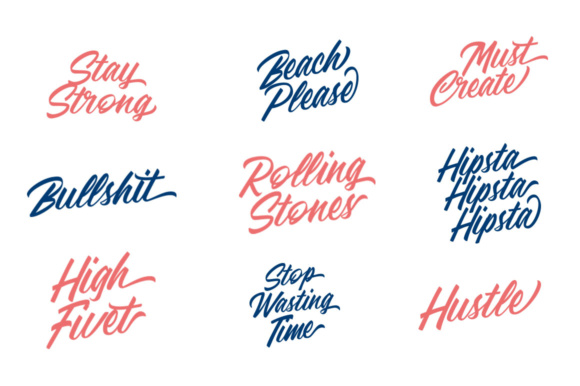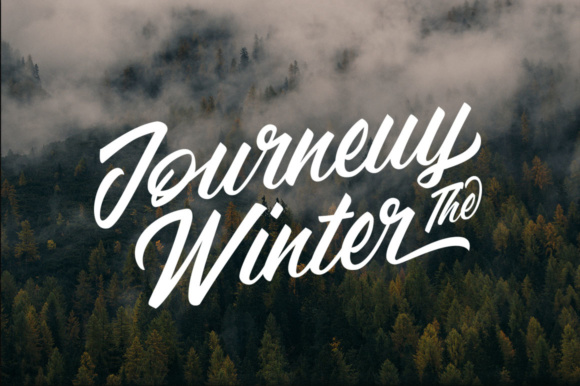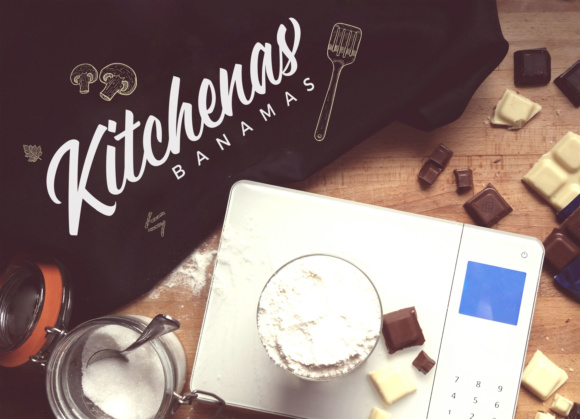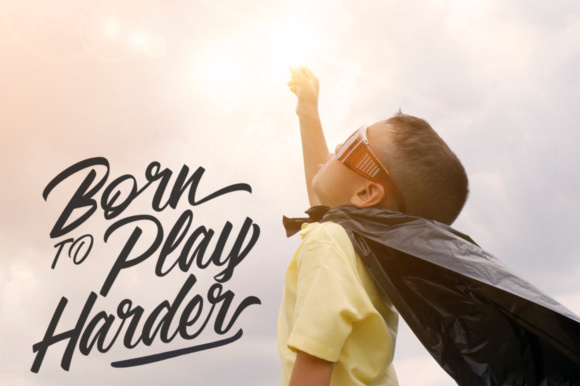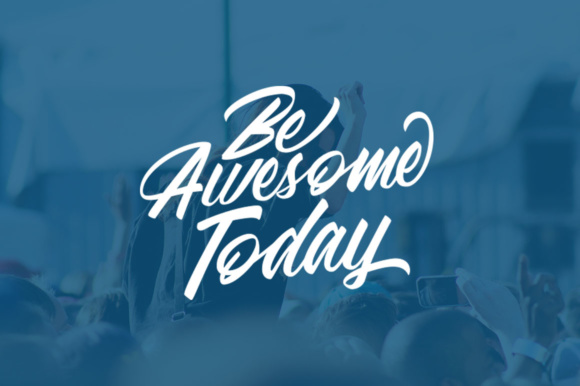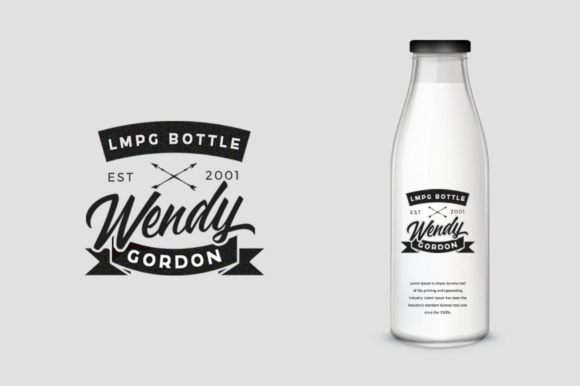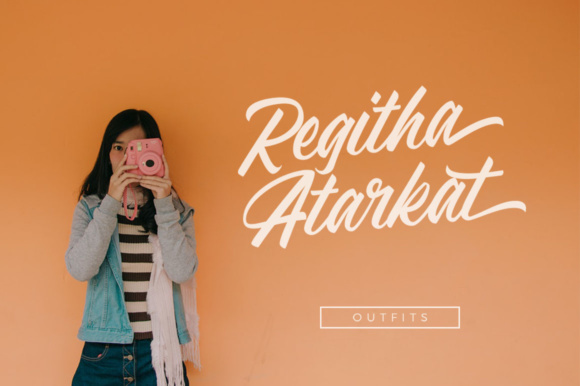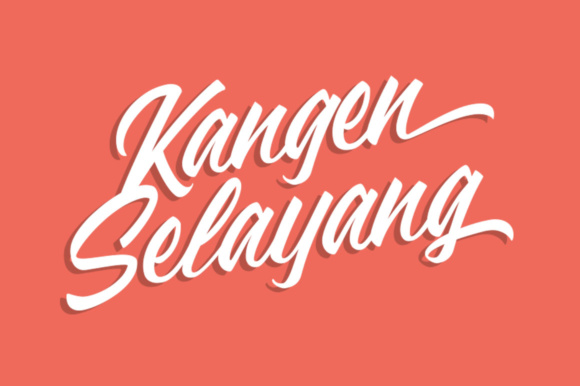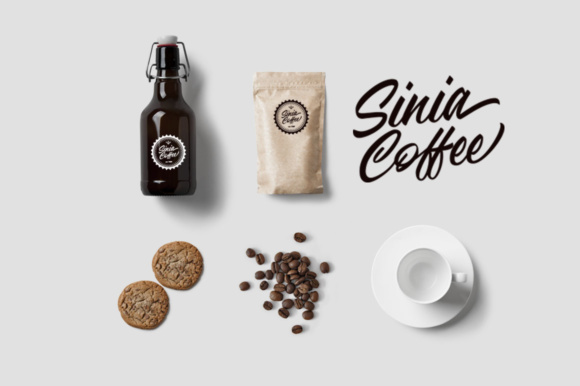
Adelaide Font
About Adelaide Font
Adelaide is a beautiful and well weighted display script, ideal for use in a wide range of projects. This font looks great as a display or headline and can add a nostalgic vibe to your creative projects.